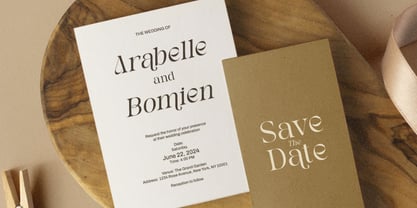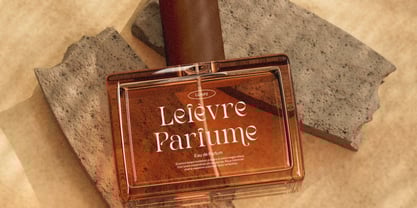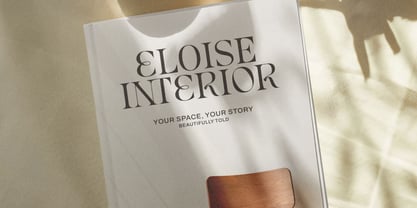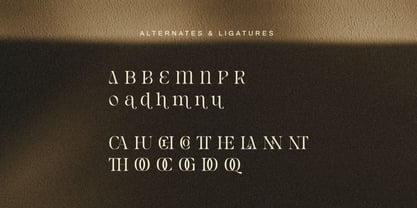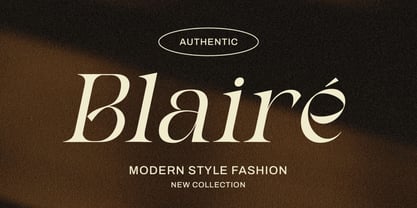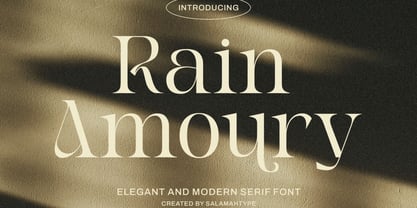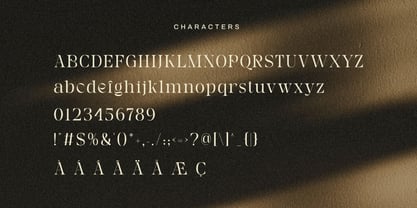
Rain Amoury
by Salamahtype
The Rain Amoury Font Family was designed by Aswangga Sadike and published by Salamahtype. Rain Amoury contains 2 styles and family package options. More about this family
Rain Amoury is a luxurious serif typeface that elegantly blends timeless sophistication with contemporary design elements. Its graceful curves and high-contrast strokes enhance its visual appeal, making it an ideal choice for upscale projects. This font offers a rich variety of alternates and beautiful ligatures, providing endless creative possibilities for unique and memorable typography. With multilingual support, it ensures versatility for global branding initiatives. Perfect for applications such as branding and logo design, wedding invitations and stationery, luxury cosmetics and fashion, editorial layouts, and high-end packaging, Rain Amoury adds refined charm to any design.
Designers: Aswangga Sadike
Foundry: Salamahtype